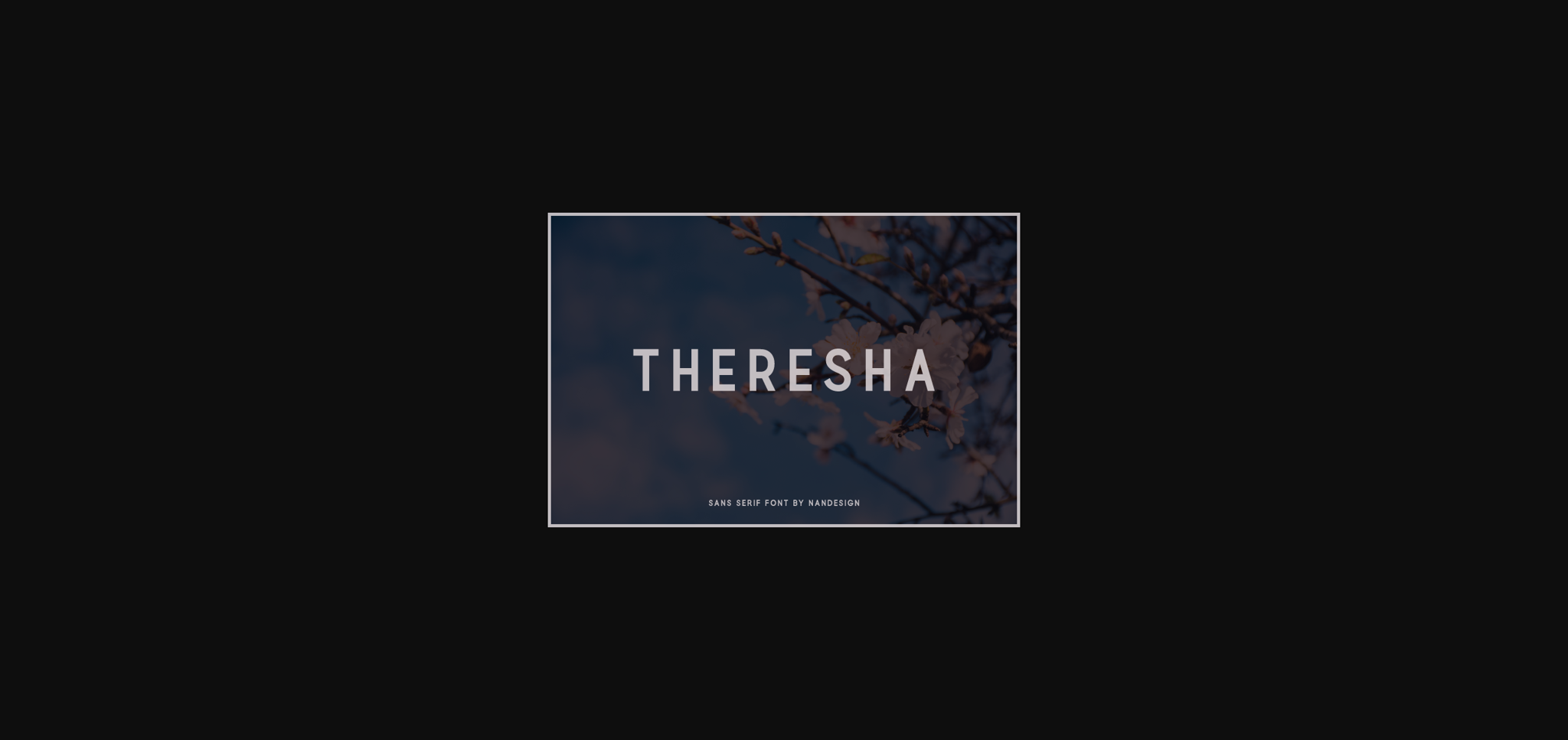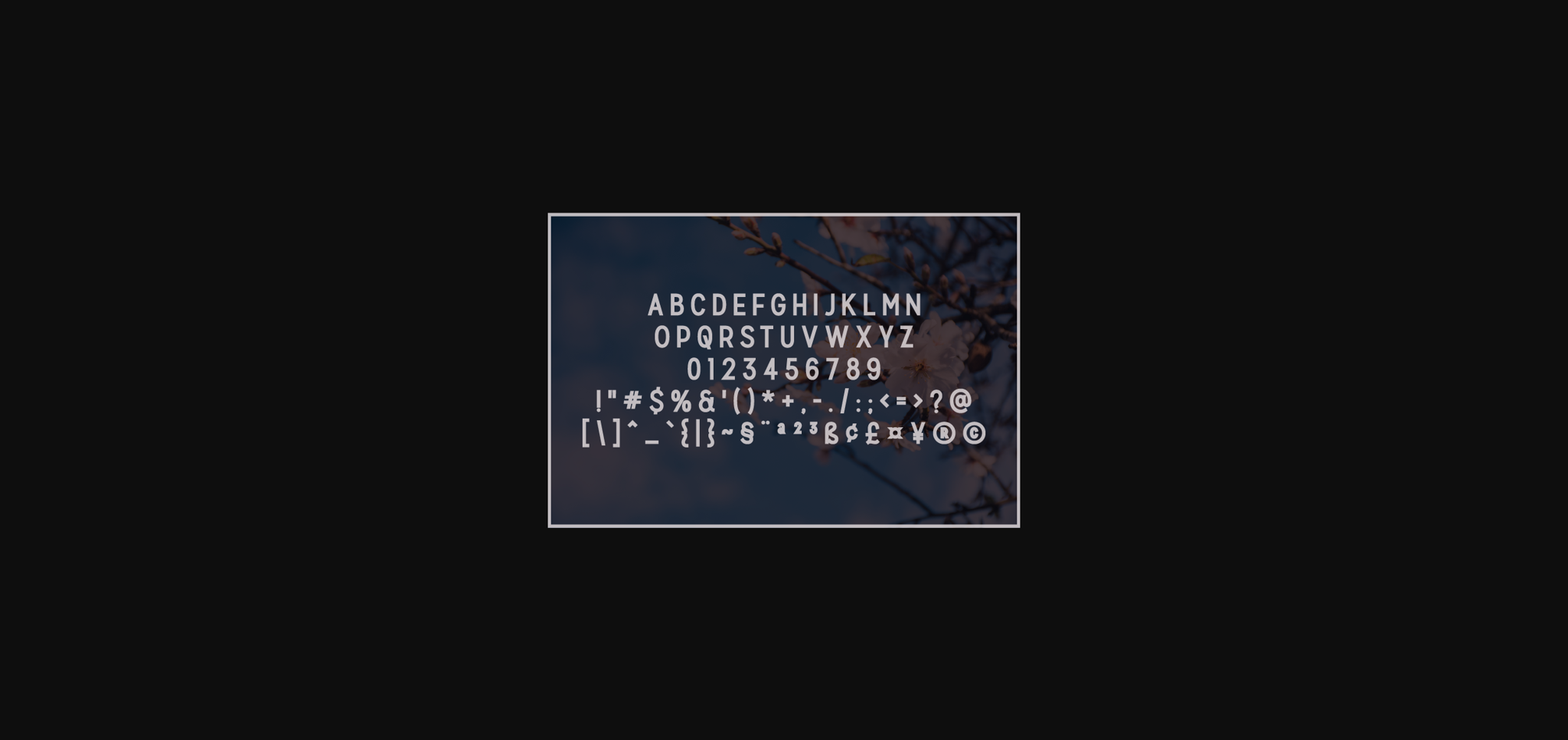
Theresha is an elegant and beautiful sans serif font with an undeniably clean feel. With its neat and beautiful arrangement of letters, this typeface will look outstanding in both formal and non-formal designs.